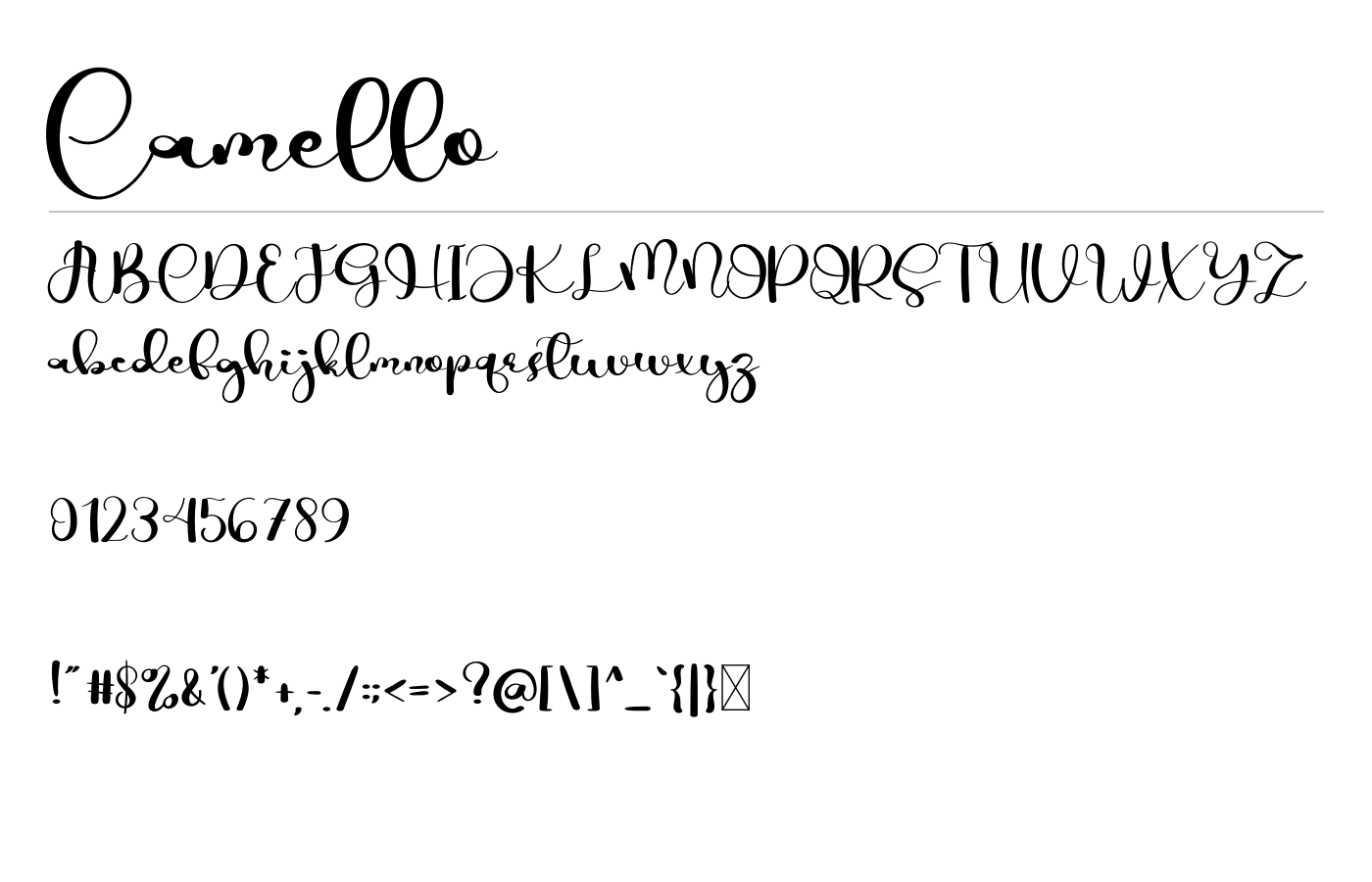
Camello is an elegant script font featuring smooth, flowing strokes with a playful, handwritten feel. Its varying stroke thickness and swirly, decorative loops give it a charming, feminine personality, making it ideal for creative branding, invitations, and stylish headlines where a touch of sophistication and warmth is desired.
Camello Font
About Camello Font